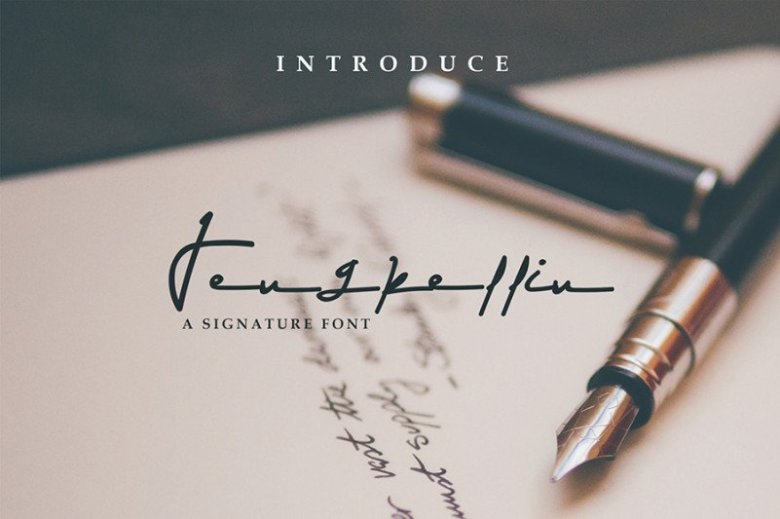
Jengkellin Signature Font
Jengkellin – This is a handwritten font. It’s looks so elegant and classy, for adding modern touch to your projects. Sillii Willinn designed and shared by Graph2design. A simply fashionable font with the original hand scratches. So, Sister Slimes can’t wait to give its touch to all your design projects such as quotes, wedding invitation, personal branding, logotype, promotional materials, overlay on the picture, social media promotion, product packaging, etc